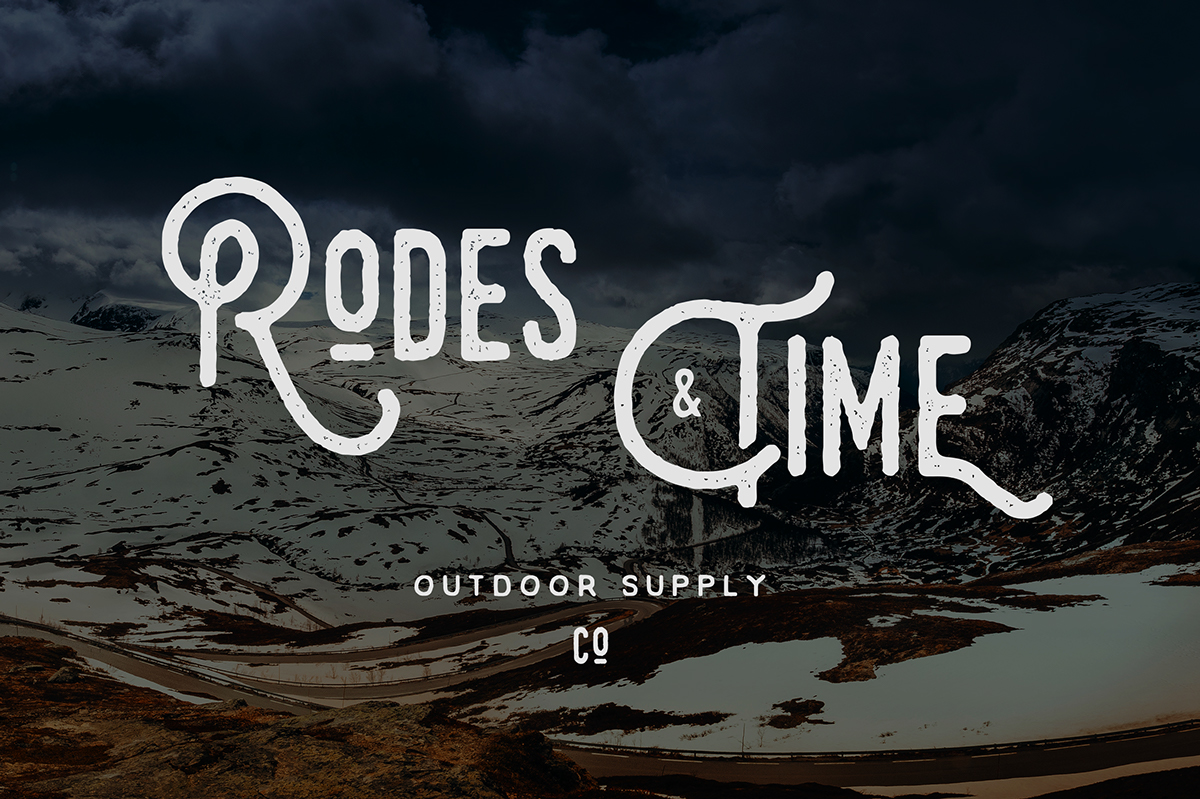
Monthoers is the latest version of Rochoes typeface that I have made almost a year ago. You can check my Rocking Rochoes here, ย Monthoers is Free for Personal / Commercial use. Feel free to use it on your any projects and dont forget to show me in comment and appreciate this project.